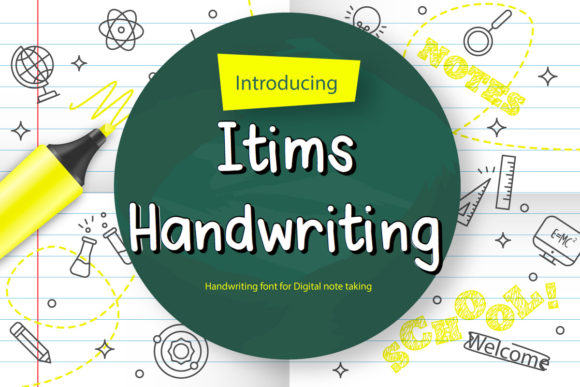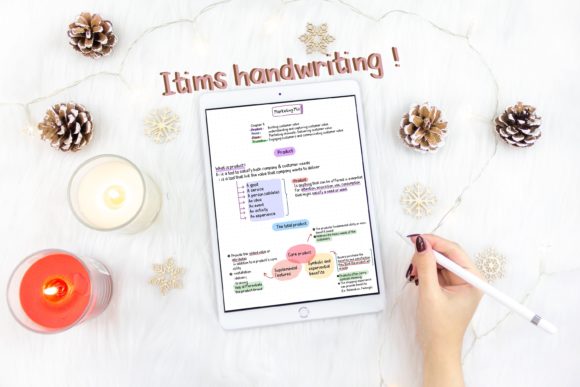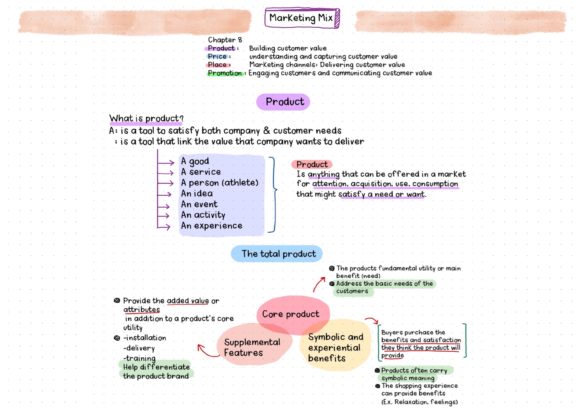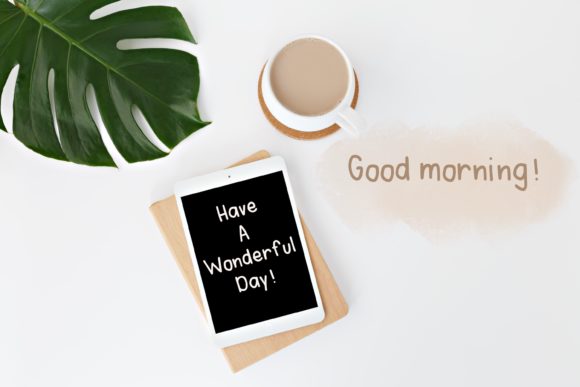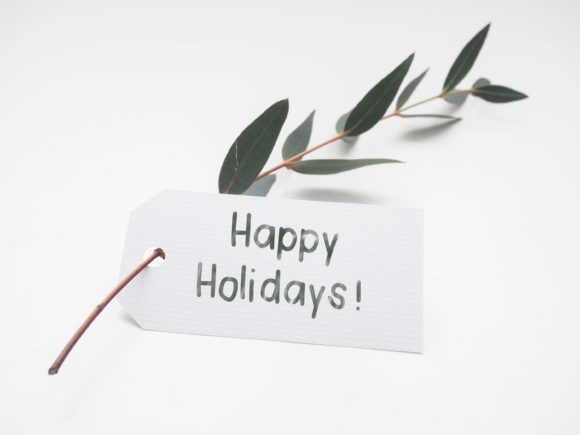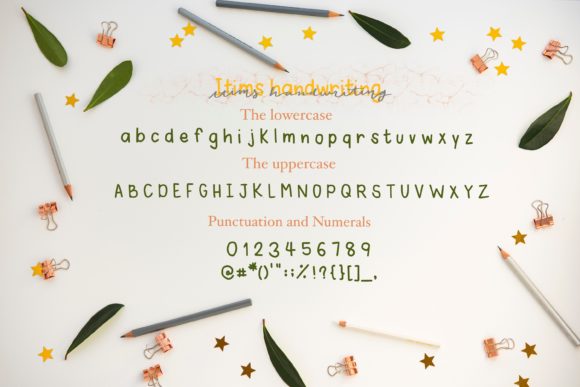
Itims Handwriting Font
About Itims Handwriting Font
Itims handwriting is a modern font. This enchanting handwritten font will turn any creative idea into a true standout. Get creative with its unique look, and use it to brighten up all your upcoming crafting projects!